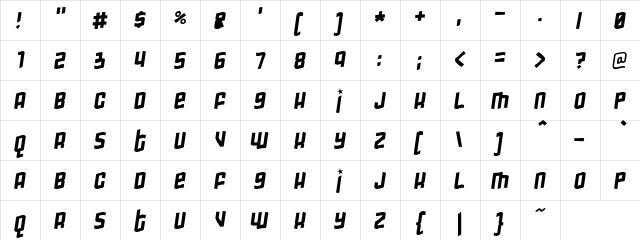
Cronice Tt Regular
Design Context for Cronice Tt Typeface
Cronice Tt offers clean, dependable letterforms without strong stylistic allegiance, making it a practical choice for designers who need flexibility.